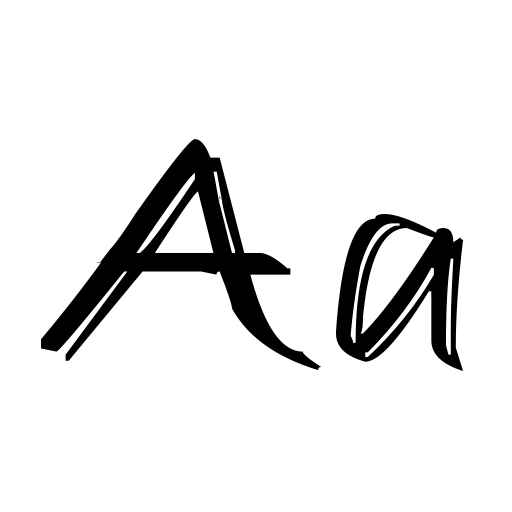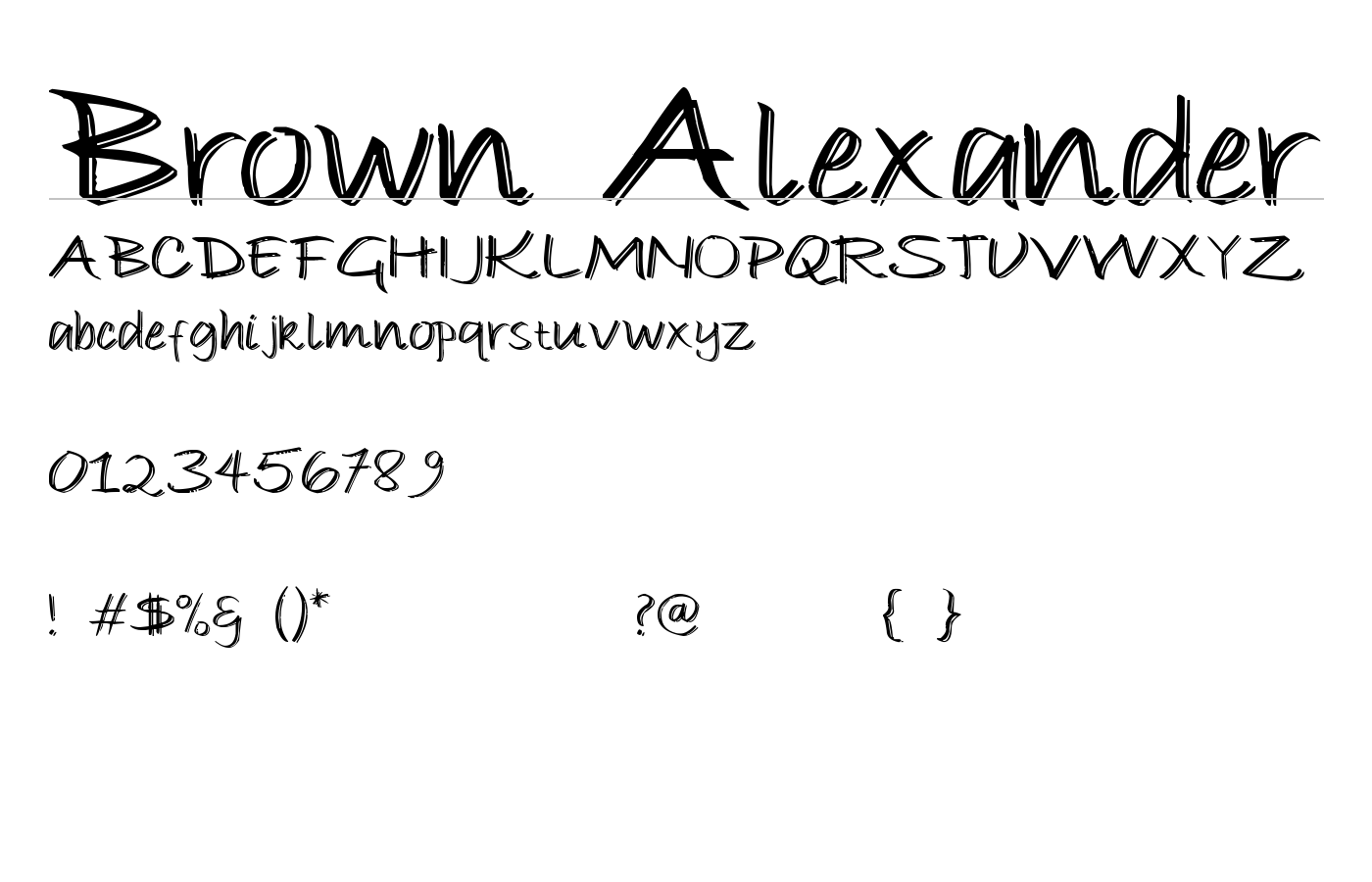
Brown Alexander is a lively handwritten script font with an artistic, casual flair. Its uneven strokes and playful letterforms create a friendly, approachable feel, making it ideal for creative projects, informal branding, and personal designs that seek warmth and personality. This font works especially well in logos, invitations, and social media graphics where a unique, handcrafted look is desired.
Brown Alexander Font
About Brown Alexander Font